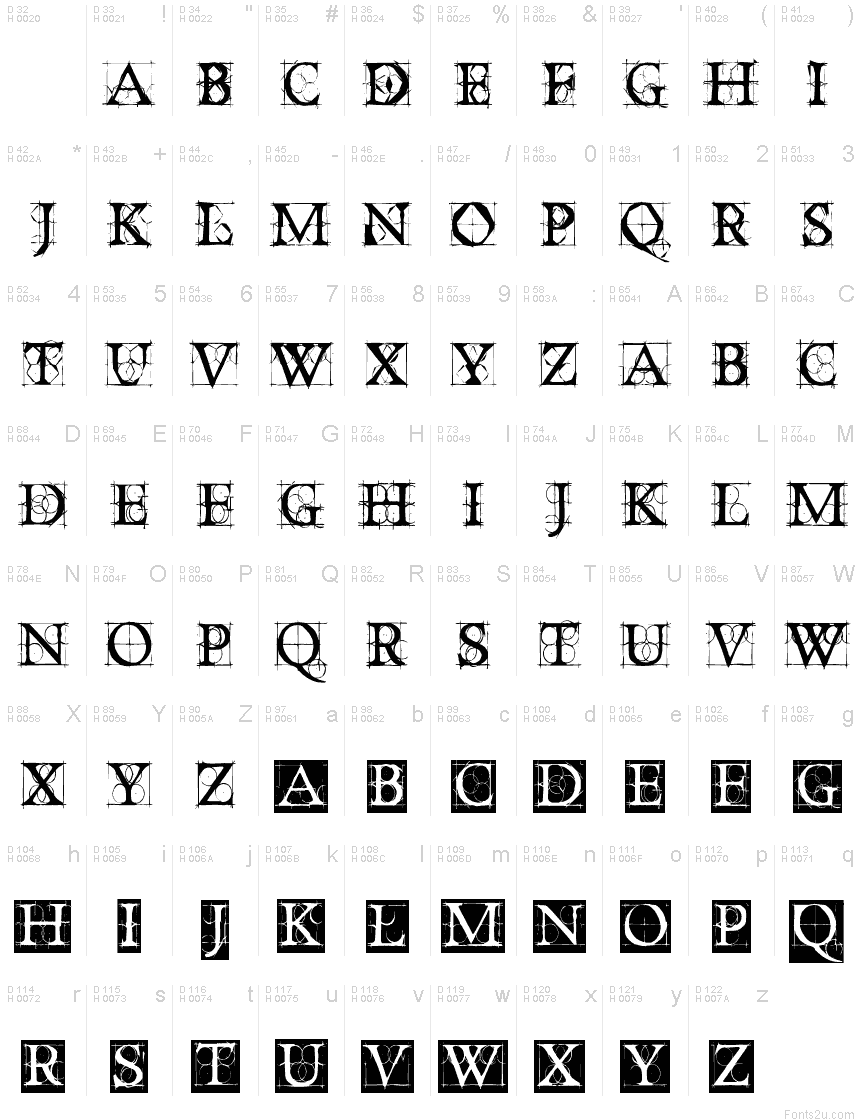
OldConstructedCaps
Old Constructed Caps, by M. Klein, is a free geometric constructed caps display font with a distinctly drafting-board, techno mood. The letters feel drawn from circles, crosshairs, and guide marks, so the alphabet reads like an old design sketch turned into bold Roman-flavored initials.
That makes this free font a natural pick for posters, record sleeves, title cards, branding marks, and editorial cover lines where the drawn construction is part of the voice. It also suits monograms and short museum-style headings, because those compass-like rings and measured guides give even a few letters a deliberate, diagrammatic presence.